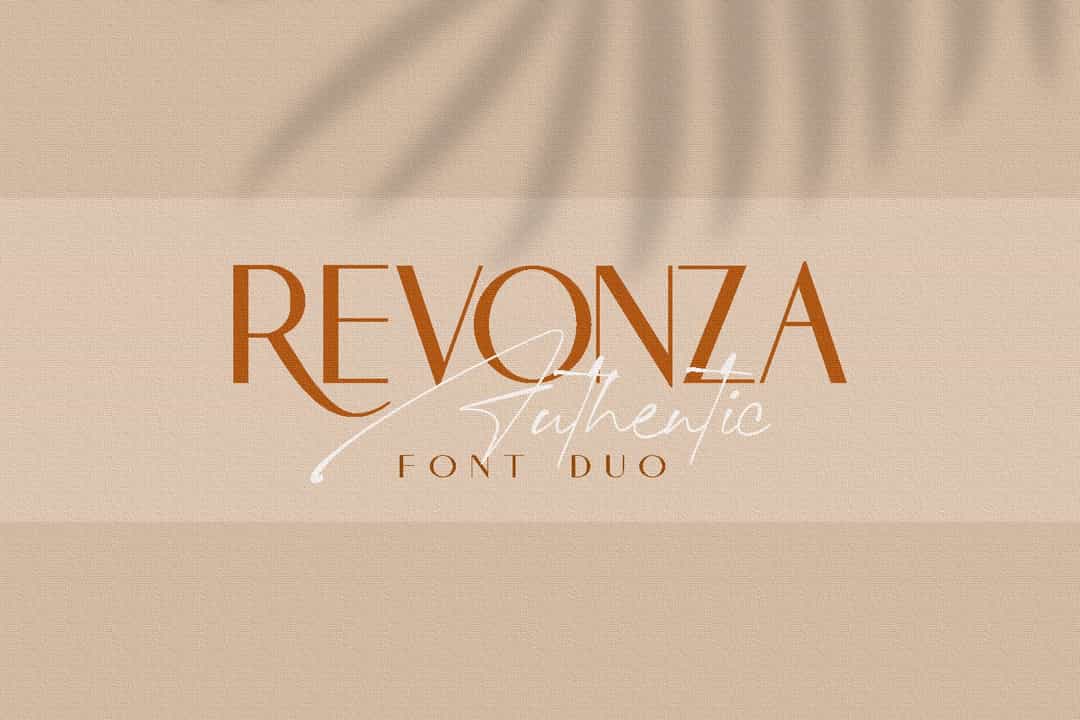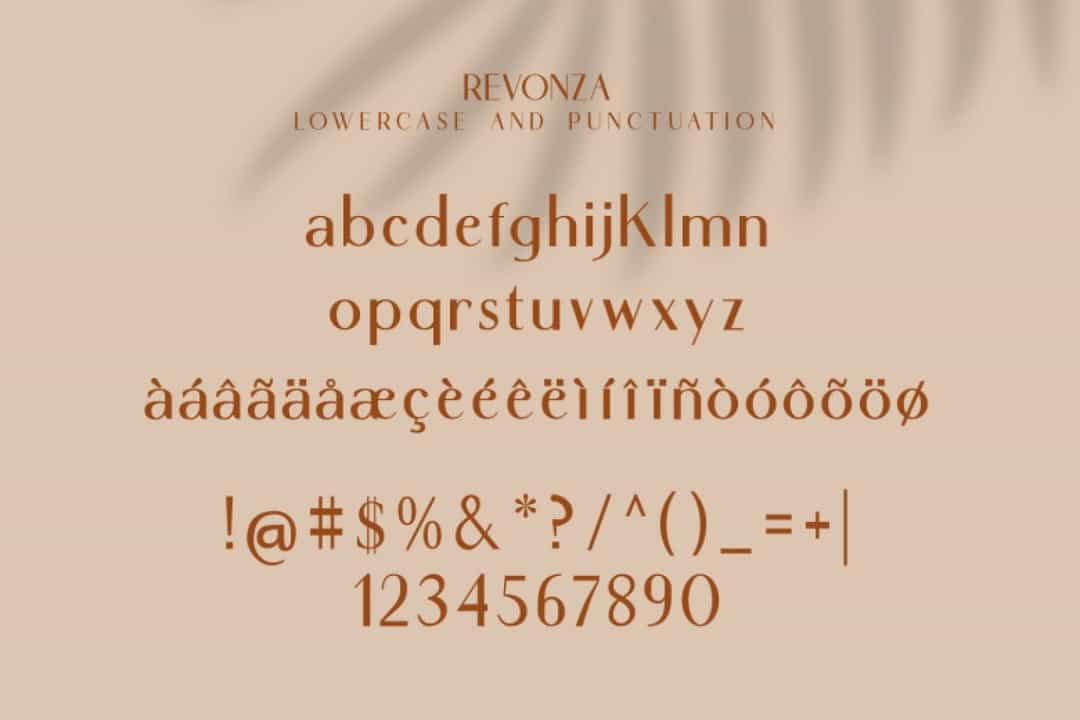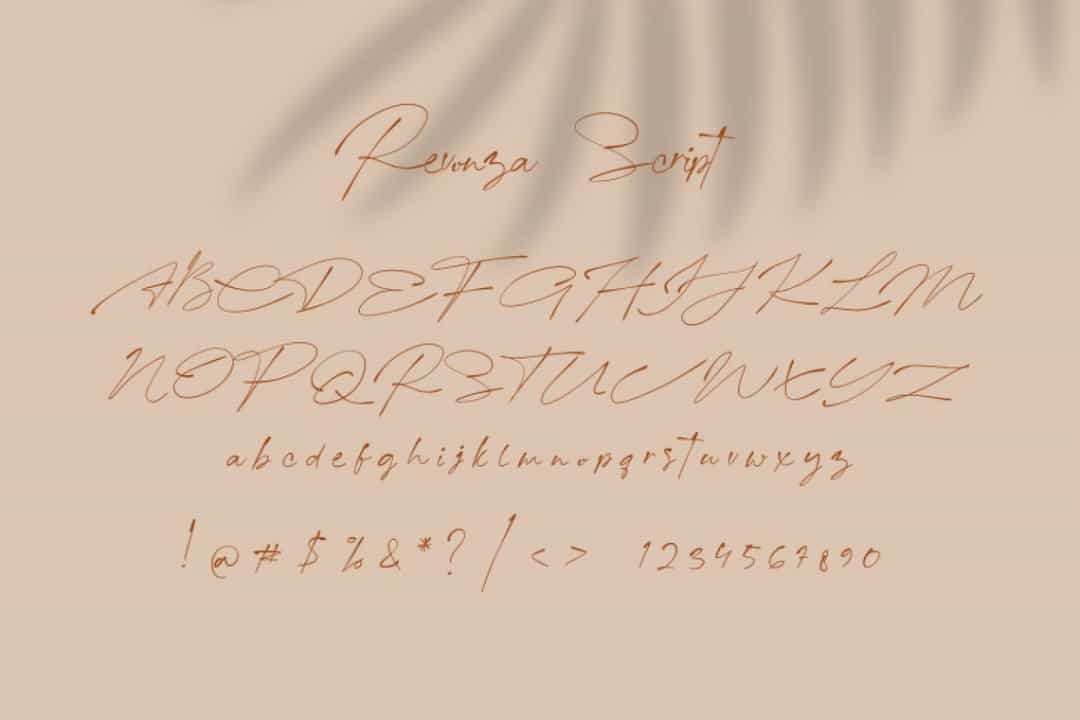
Revonza Authentic is an exquisite duo font (sans serif and script). Incredibly powerful yet stunningly beautiful, Revonza Authentic can add impactful designs. See how adding it can bring them to life! Revonza Authentic features lowercase letters, uppercase numerals, punctuation marks, and alternate characters – perfect for creative projects!